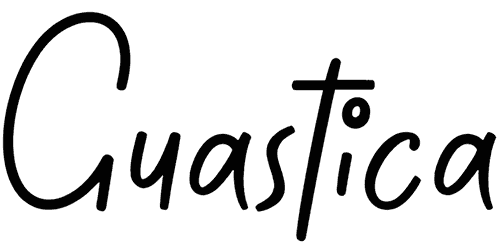
Guastica Font
Motivated by natural senses, and love handmade fonts? Find the amazing best of them in this latest collection offered by RB! Guastica, with friendly characters, is one of those options that not everyone goes to.
With a real pen lettering style, this elegant bullet journal font can be memorable for numerous subjects like magazine covers, cosmetic packages, postcards, stationery designs, and so on. You’re going to require them anyway, so why not take advantage of the free ones on here?